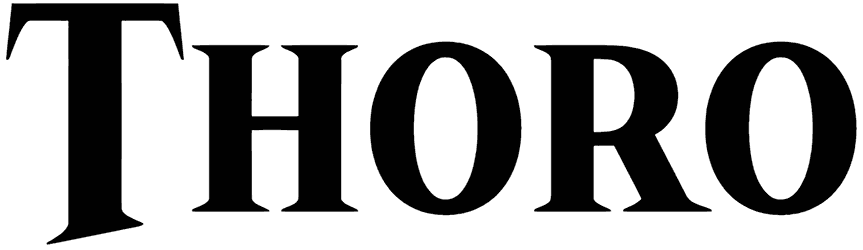
Thoro Font
Meet Thoro, a creative serif font that gives off an ancient, gothic feel. Plus, if you want to combine those features with a little fear flavor, it will do the trick. Just the sight of this font is enough to make you get goosebumps.
There are no lowercase letters, while as a substitute, we have another form of uppercase characters. It will work perfectly for magazine covers, movie titles, horror concepts, historical books, and video games.